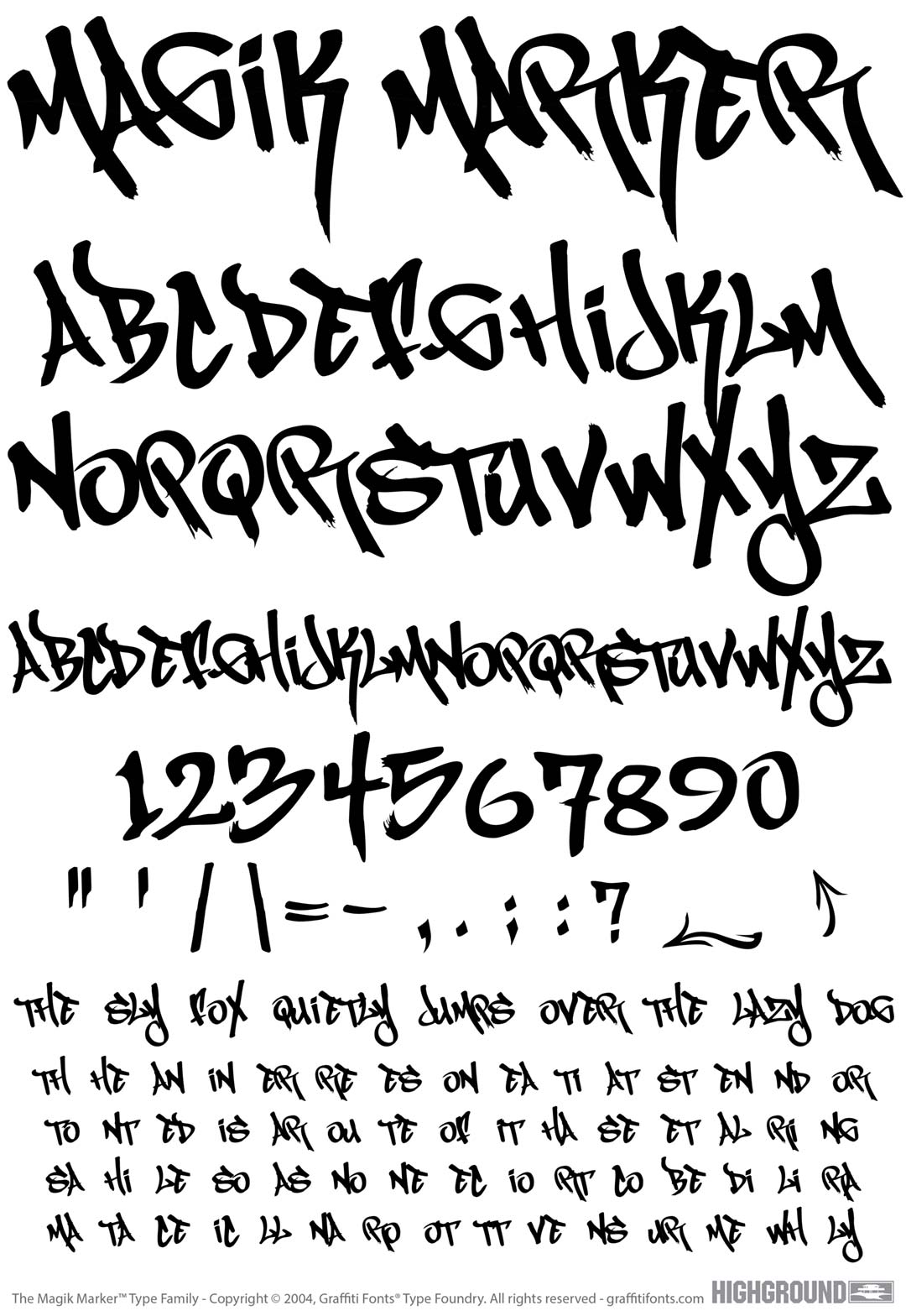
Magik Marker Free
Magik Marker Free Graffiti Alphabet
Magik Marker Free Graffiti Font Family
This is a fun, sort of toy style. Dramatic, hand written letters created with a chisel-tip felt marker. Rough edges & streaks help give an organic fee. There are 2 alphabets (both caps) , numbers & more all included.